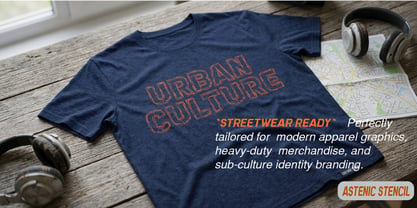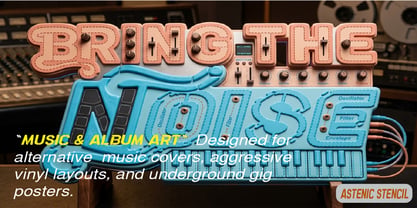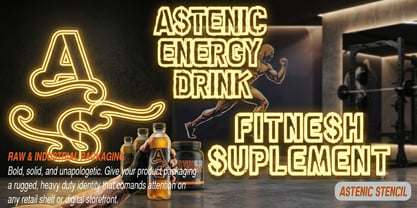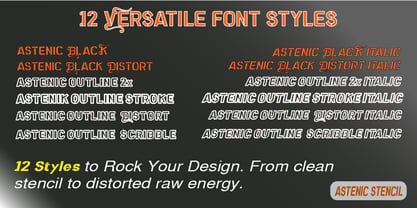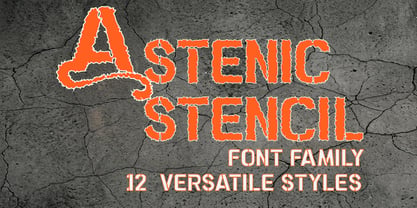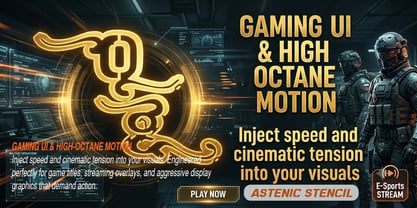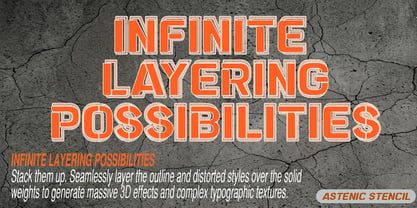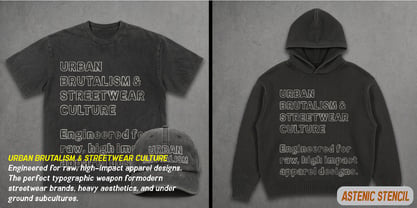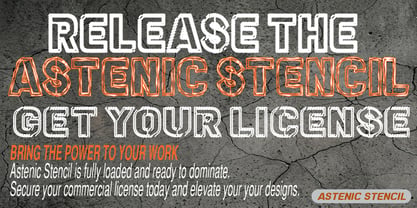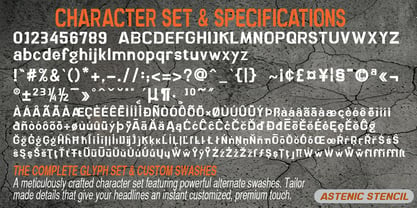
Astenic Stencil
The Astenic Stencil Font Family was designed by Irwansyah and published by Anzone glyph. Astenic Stencil contains 7 styles and family package options. More about this family
Astenic Stencil is a powerful, high-impact display font family designed for bold statements and cutting-edge visual identities. Rooted in industrial aesthetics, this stencil typeface breaks traditional boundaries by introducing 12 versatile styles—ranging from clean, solid structures to heavily textured variants like Outline, Stroke, Scribble, and Distort.
Engineered with intricate distressed vector details, each style maintains its sharp legibility while delivering a raw, energetic punch. Whether you are crafting heavy-duty industrial branding, street-wear apparel lines, gaming user interfaces, music poster art, or high-octane energy drink packaging, Astenic Stencil provides the ultimate creative toolkit to make your typography stand out